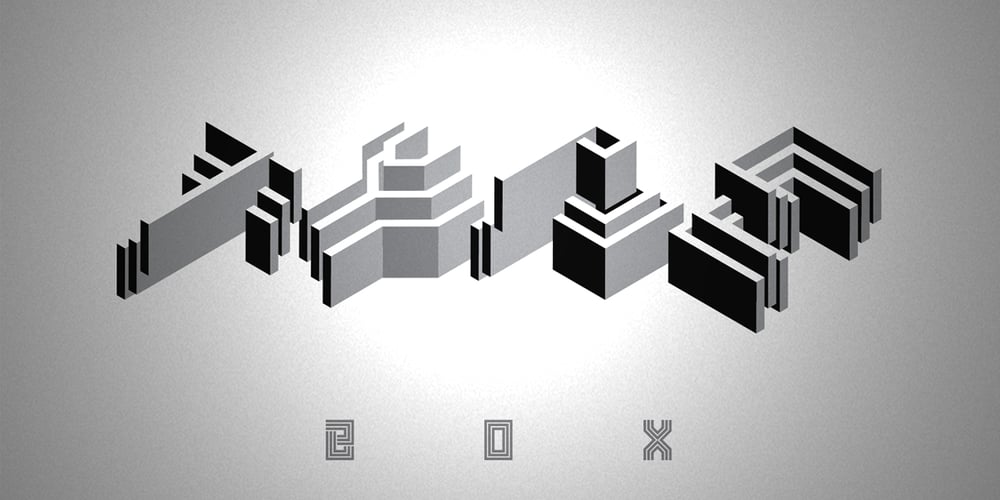
Box Font Family was designed by published by Superfried. Box contains 4 styles and family package options. Box is an experimental, retro display typeface designed by Superfried. Initially inspired by the parallel paths of our own logo, Box then took a detour leading to glyphs that are predominantly square in construction. The result is a bold, distinct look with high impact. Box was selected as font of the day by Creative Bloq [08/10/14], featured on North East and is available in four styles: display, box in, box out and solid.